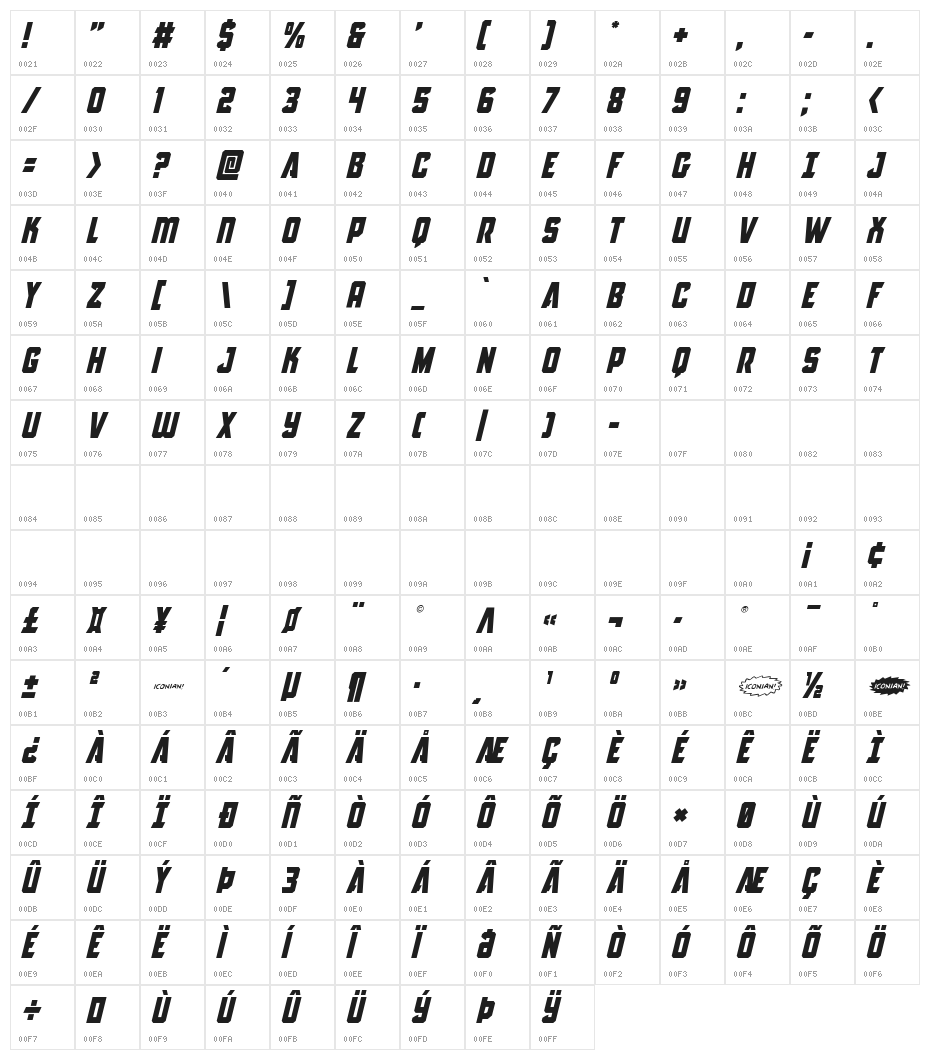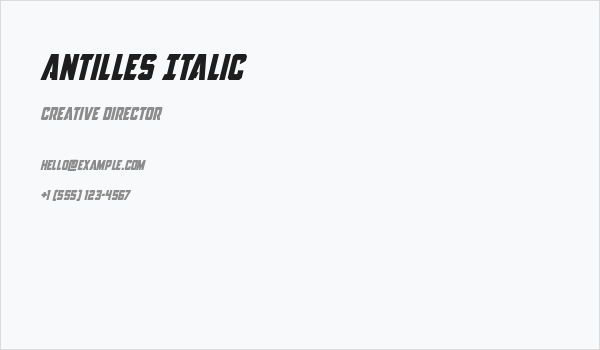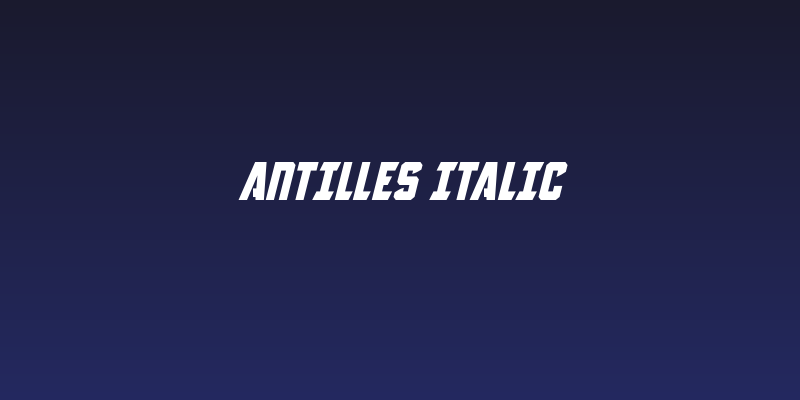
Antilles Italic Font
Antilles Italic Description
This font features a bold and dynamic style with a strong italic slant, giving it a sense of motion and energy. The characters are angular and geometric, with sharp edges and a consistent stroke width that conveys a sense of strength and modernity. The uppercase and lowercase letters maintain a uniform appearance, enhancing readability while adding a unique flair. The numerals and special characters are designed to match the overall aesthetic, making this font suitable for impactful and attention-grabbing designs.
| Proposed Projects | Ideal for sports branding, action movie posters, dynamic logos, and any project requiring a bold and energetic typeface. |